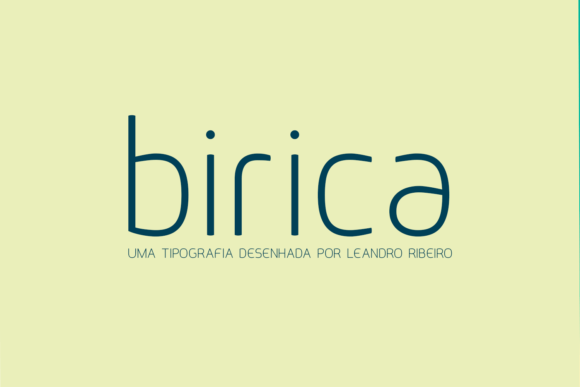
Presenting Birica Font, the sans serif masterpiece that will transform your designs!
Immerse yourself in a world of boundless creativity with Birica, the font that seamlessly adapts to all your design needs. From captivating book covers to professional business reports, Birica empowers you to convey your message with style.
Indulge in the versatility of Birica. Its clean lines and crisp curves dance across magazine pages, capturing attention and enhancing readability. Embrace the visual appeal of posters and advertisements, where Birica commands presence with its bold yet approachable character.
Unleash your creativity in the realm of multimedia and corporate design. Birica's adaptability shines through, elevating your presentations and marketing materials to new heights. Its ability to convey both sophistication and approachability makes it the perfect choice for any project.